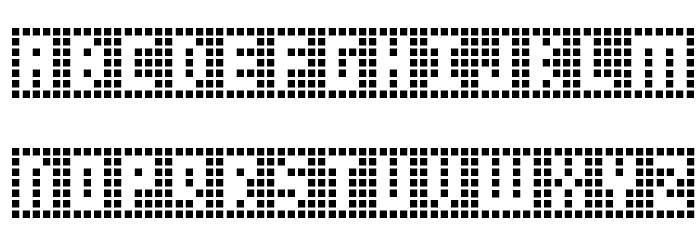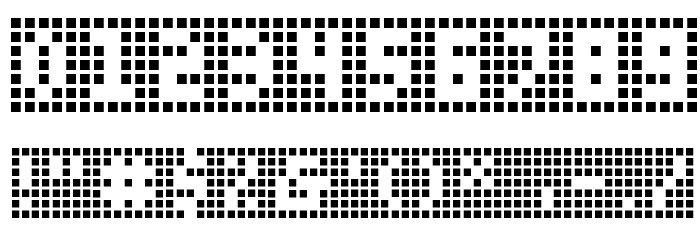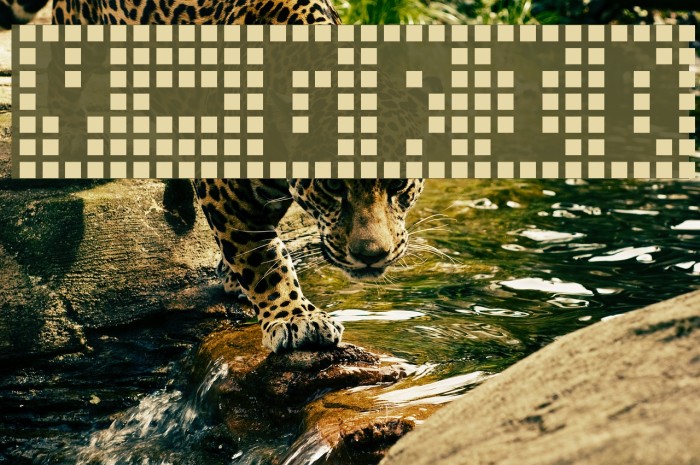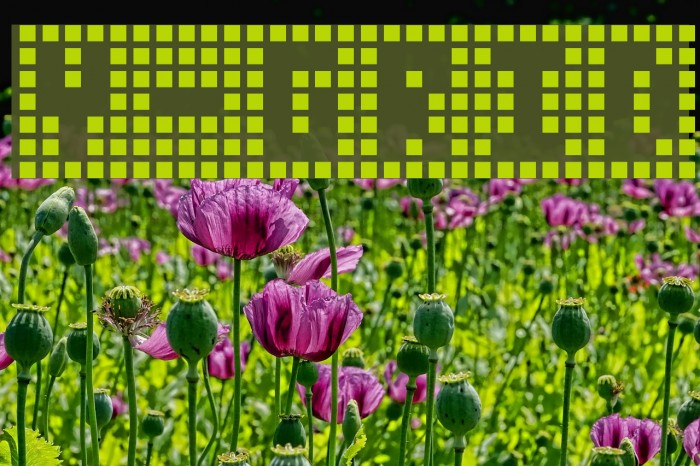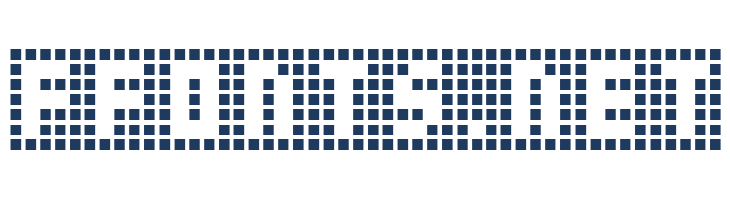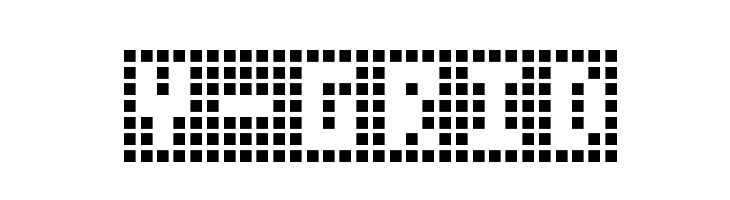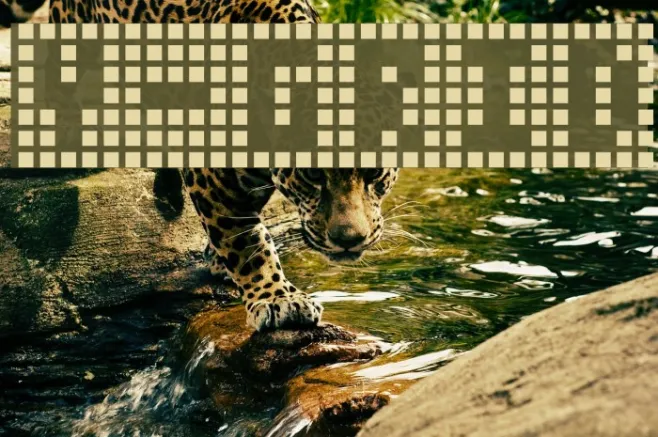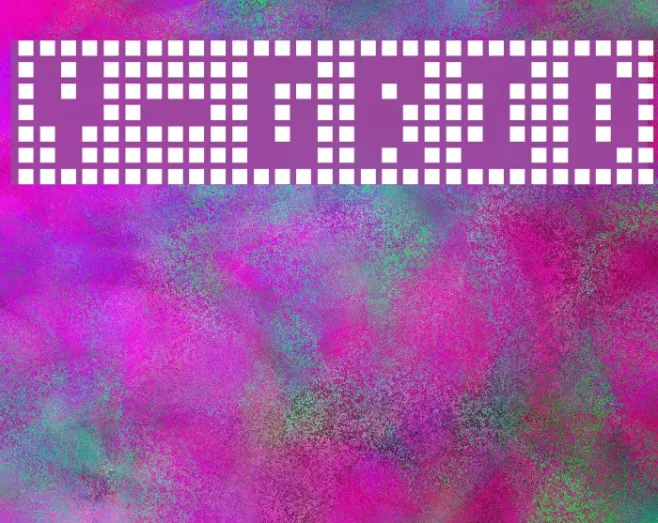
Y-Grid Font
This font features a unique grid-based design, where each character is composed of small, evenly spaced squares. The geometric structure gives it a digital and futuristic appearance, reminiscent of early computer displays or pixel art. The uniformity of the squares creates a consistent texture across all characters, making it highly distinctive. The uppercase and lowercase letters maintain the same height, enhancing the grid effect. Numbers and special characters follow the same design principles, ensuring a cohesive look throughout. This font's rigid structure and pixelated style make it stand out in any digital or tech-themed project.
A grid-based, pixelated font with a digital and futuristic style.
- Proposed Projects: Ideal for digital art, tech-themed designs, video game graphics, and retro-style posters.
- Use Case: Logos, Headlines, Digital displays